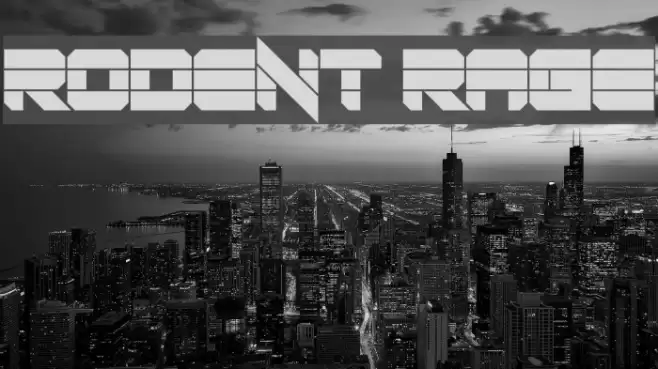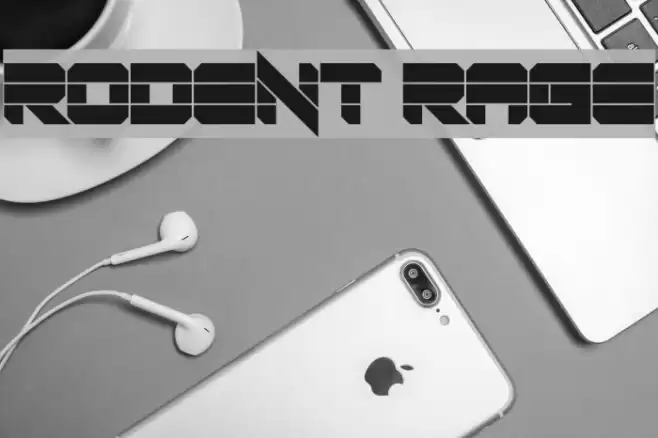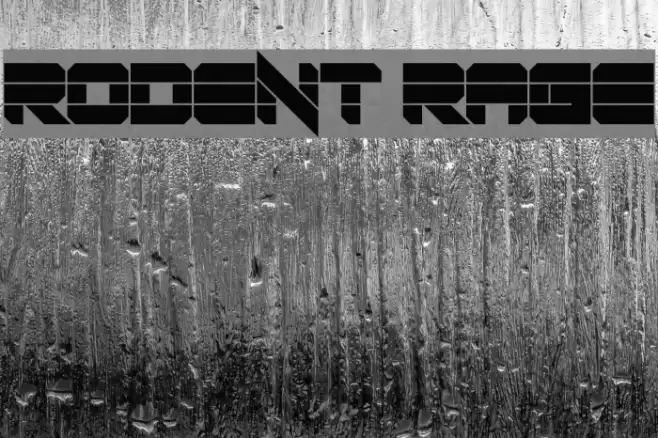
Rodent Rage Font
Rodent Rage Description
This font features a bold, geometric design with a futuristic and industrial feel. The characters are constructed from thick, block-like shapes that create a sense of strength and solidity. The angular cuts and sharp edges give it a dynamic and edgy appearance, making it stand out in any design. The uniformity of the characters adds to its modern aesthetic, while the unique styling of each letter maintains readability. This font is ideal for projects that require a strong visual impact and a contemporary look.
A bold, geometric font with a futuristic and industrial design from Uncategorized fonts.
- Proposed Projects: Perfect for branding, posters, video game graphics, and sci-fi themed projects.